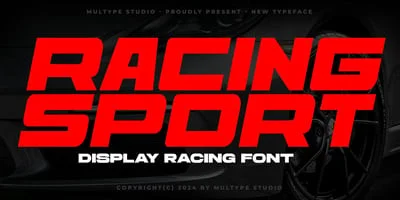
Racing Sport Display Font
Racing Sport Display Font is perfect for high-speed design projects including motorsport team branding, racing event promotions, automotive dealerships, speed racing championships, racing simulator graphics, car tuning shops, motorsport merchandise, and adrenaline-fueled marketing campaigns. This dynamic typeface excels in Formula One graphics, NASCAR promotions, drag racing events, speedway signage, and projects that celebrate velocity, competition, and racing excellence.
What makes Racing Sport Display Font exciting is its electrifying speed character that perfectly captures the essence of motorsport intensity and racing adrenaline. The font features aerodynamic letterforms with velocity-inspired angles that reflect the precision engineering and competitive spirit of professional racing. Its high-octane design elements embody the spirit of speed competition and racing mastery, making it perfect for projects that need to convey velocity, precision, and connection to motorsport heritage. The carefully crafted racing-inspired details create an atmosphere of competitive intensity and championship excellence.
Racing Sport Display Font comes in multiple family variations including turbo, velocity, championship, and pit stop styles. Each weight maintains the distinctive racing character while offering different levels of speed intensity and motorsport presence. The font family includes racing alternates, velocity ligatures, and championship variations that provide designers with comprehensive options for creating truly dynamic and racing-authentic typographic compositions that celebrate competitive excellence.